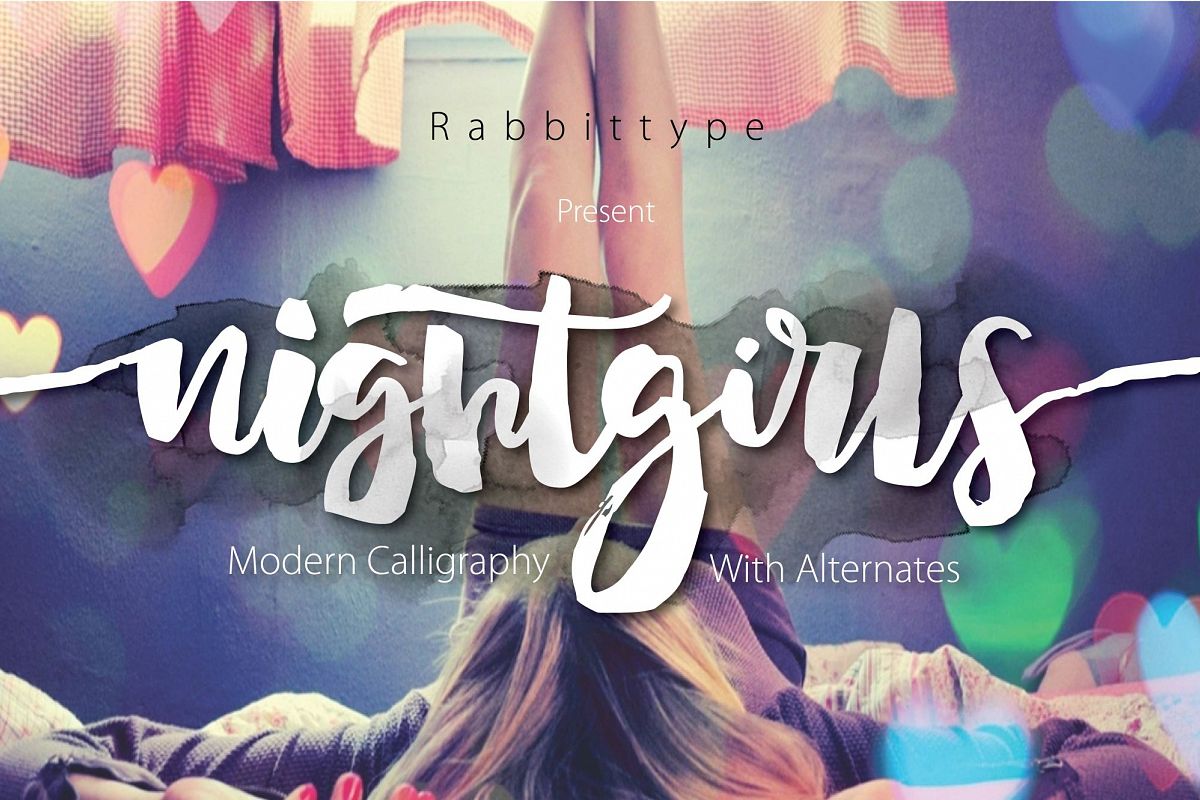
Nightgirls Script
Nightgirls Script is a beautiful Script, It suitable for wedding invitation, greeting cards, T-Shirt, Logo or any design that you create.comes with a complete set of standard characters, Alternates, Punctuation & international glyphs
UPPERCASE
lowercase
numeral
punctuation
international glyphs
Ligatures
Alternates Glyphs